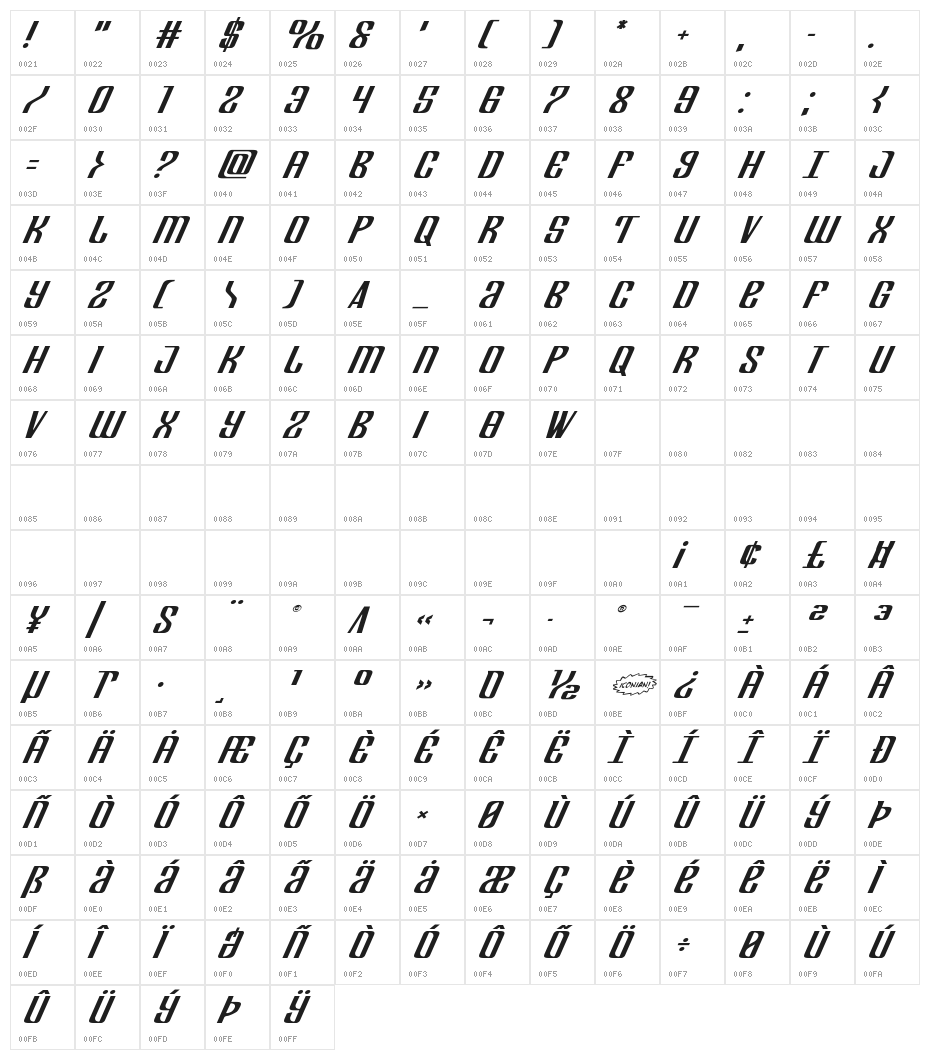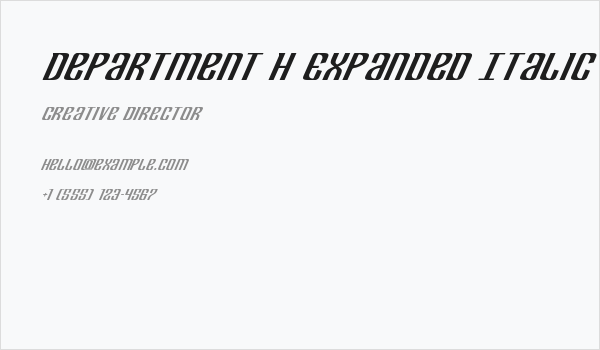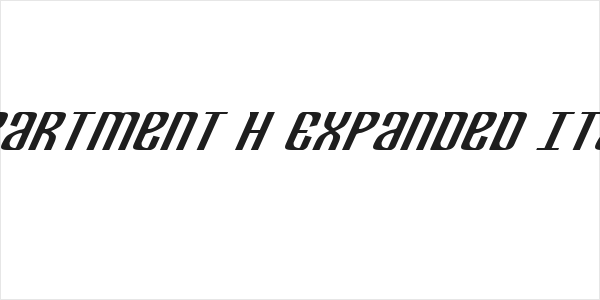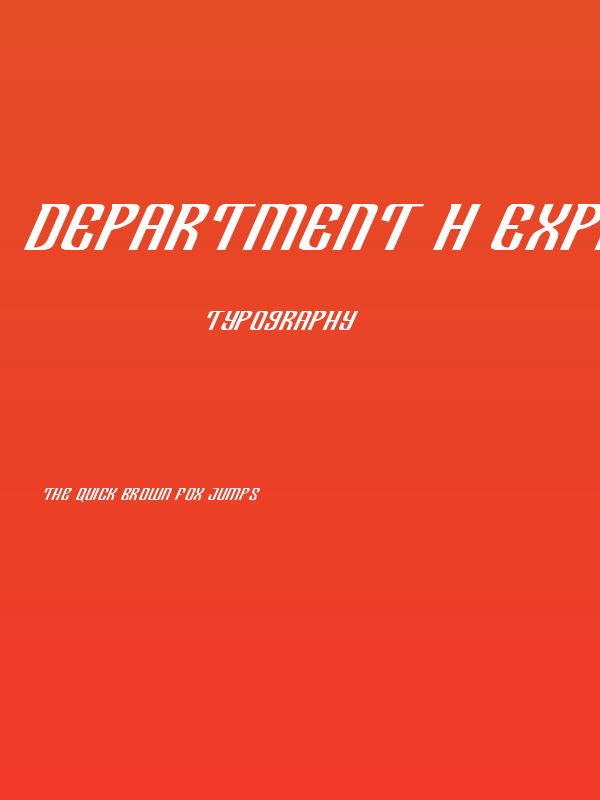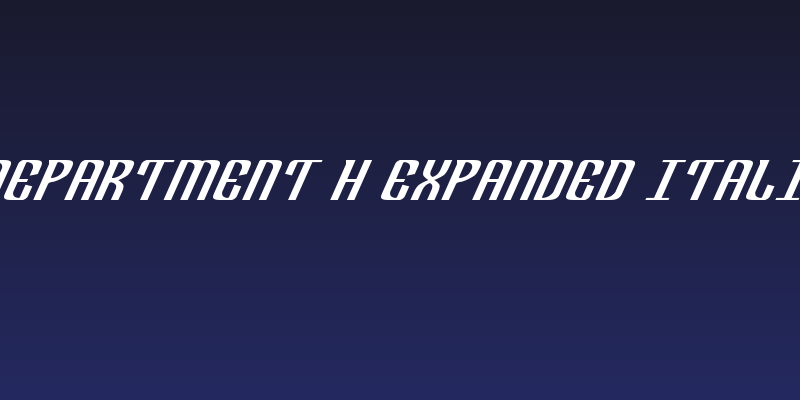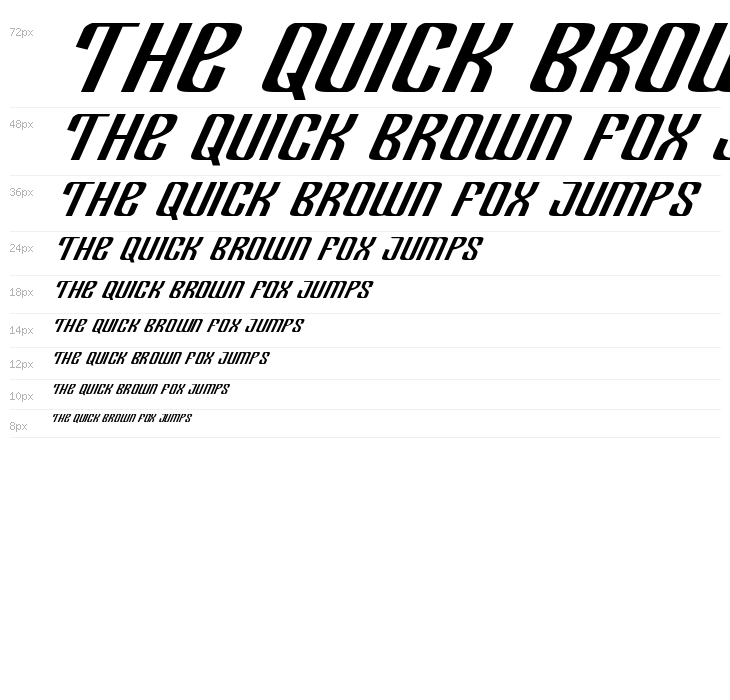
Department H Expanded Italic Font
Department H Expanded Italic Description
This font features a bold and dynamic style with an italic slant, giving it a sense of motion and energy. The characters are expanded, providing a wide appearance that enhances readability while maintaining a modern and sleek look. The strokes are consistent in thickness, contributing to a uniform and cohesive design. The font includes a full set of uppercase and lowercase letters, numbers, and a variety of special characters, making it versatile for various applications. Its distinctive style is ideal for creating impactful headlines and eye-catching designs.
| Proposed Projects | Ideal for sports branding, dynamic posters, modern advertising, and bold headlines. |